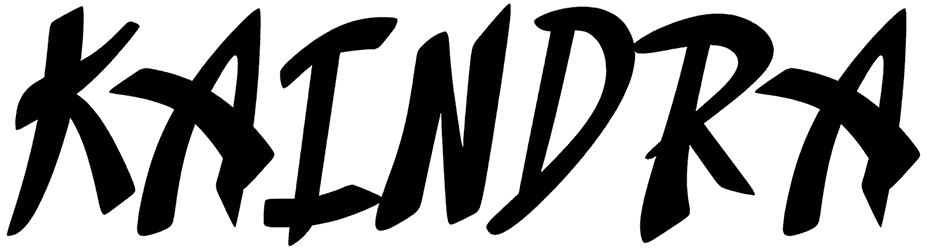
Kaindra Font
Kaindra can be in your most-used fonts category for a long time. Because it has an angular and sharp design used for all kinds of scary or severe projects, despite not having small letters.
This Japanese font has a lot of power in conveying messages in posters, advertisements, and websites, and can also create a good effect on packaging. If you are looking for a font that will bring you charm in a short time, Kaindra is a tempting offer.